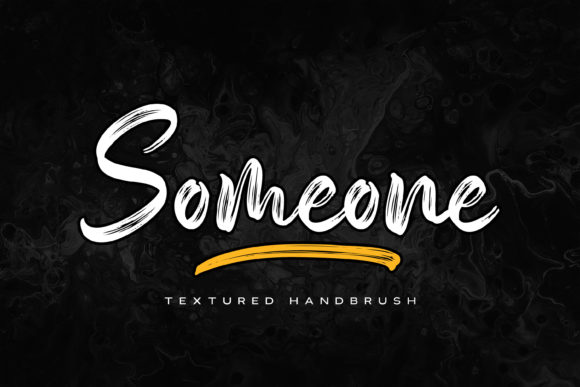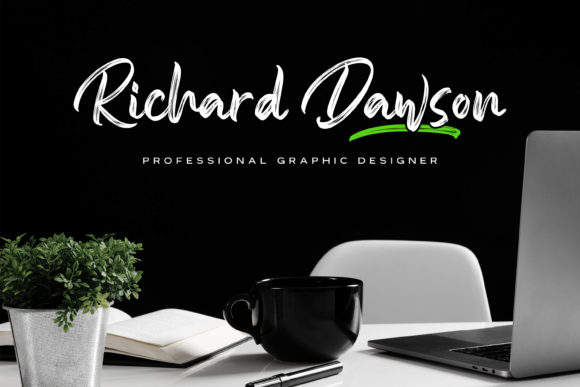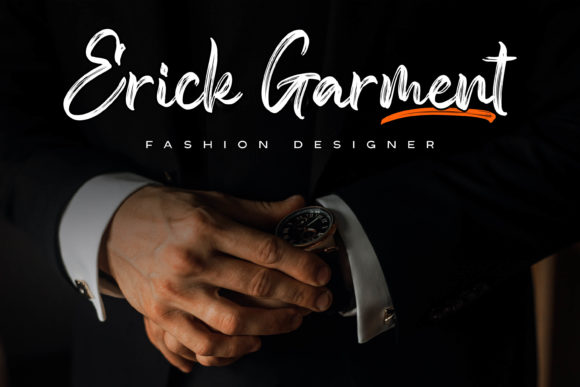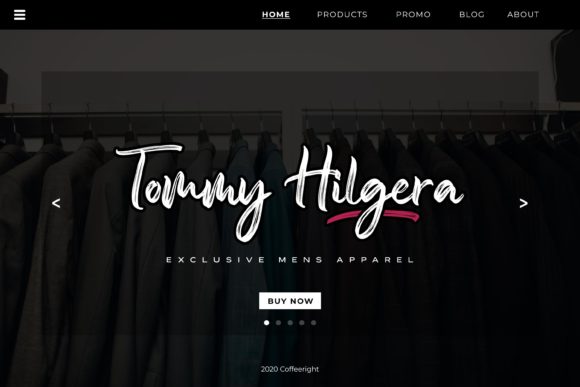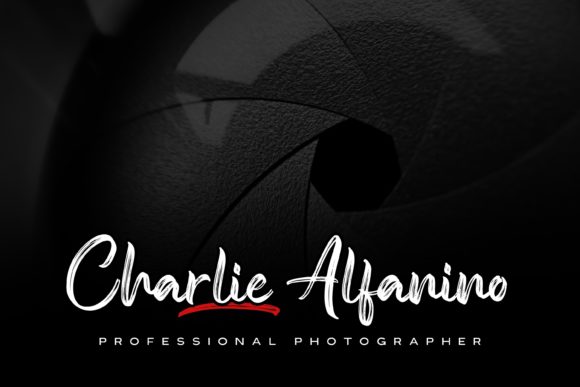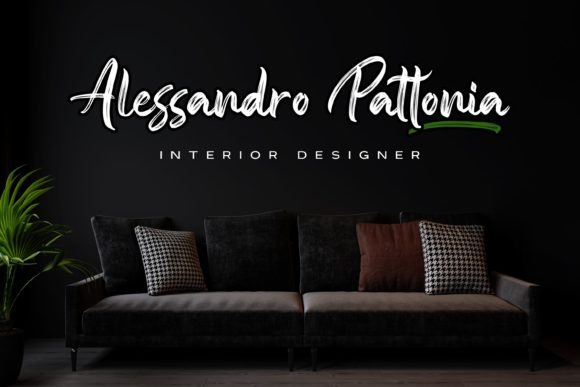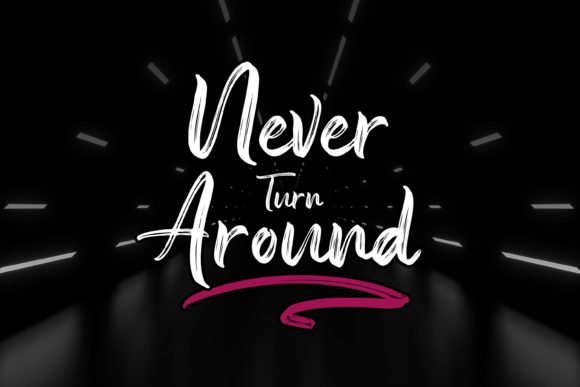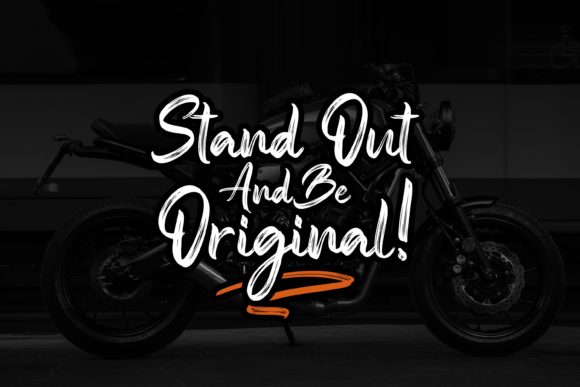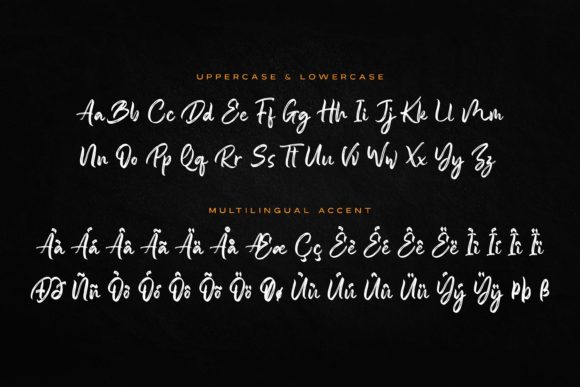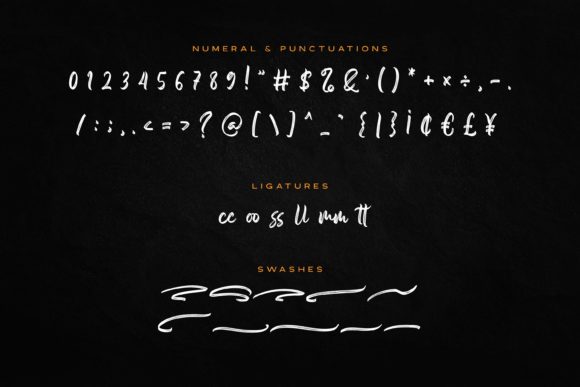
Someone Font
About Someone Font
Someone is a beautiful and flowing handwritten font, created with the help of a brush pen. Fall in love with its incredibly versatile style and use it to create spectacular designs!